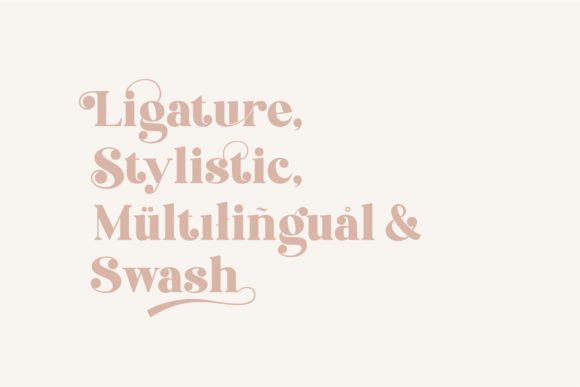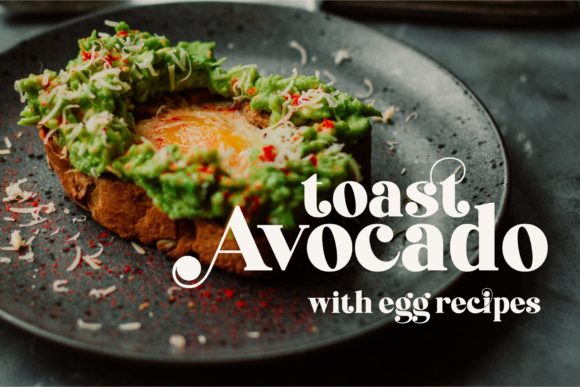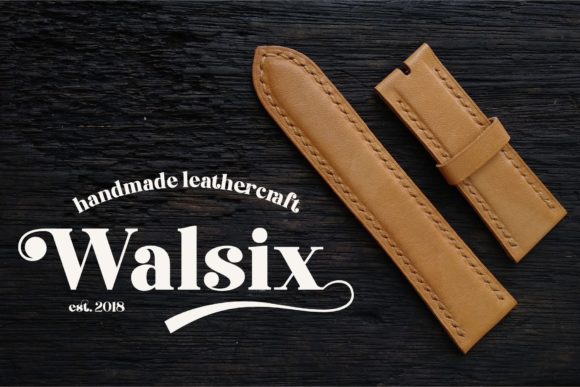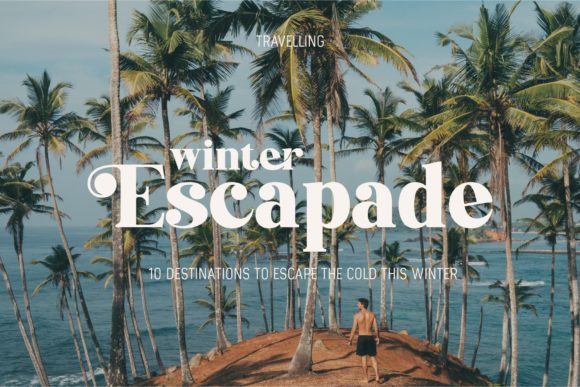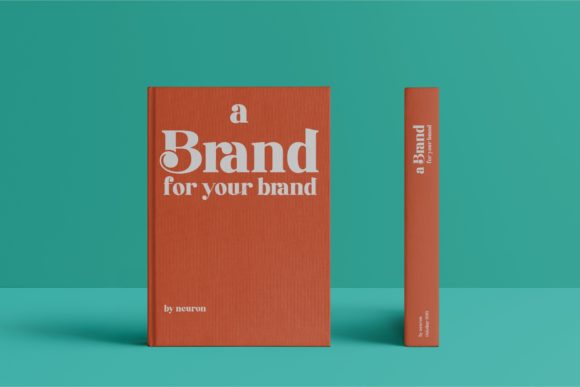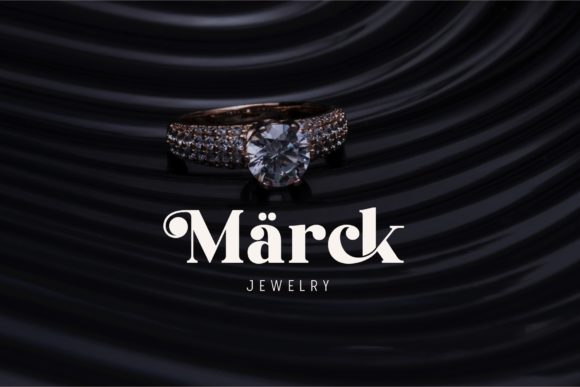
The Power of Brand Font: Elevating Your Visual Identity with Bold and Chic
In the world of design, typography plays a crucial role in shaping a brand’s visual identity. A well-chosen font can instantly convey a brand’s personality, values, and tone, setting it apart from competitors and making it more memorable to audiences. One font that has been making waves in the design community is Brand Font, described as “bold and chic, featuring strong contrasts and an incredibly elegant feel.” In this article, we’ll explore the world of Brand Font, its characteristics, and how it can elevate your brand’s visual identity.
What is Brand Font?
Brand Font is a typeface designed to make a statement. Its bold and chic aesthetic is characterized by strong contrasts, elegant lines, and a sophisticated feel. This font is perfect for brands that want to exude confidence, luxury, and refinement. Whether you’re a high-end fashion brand, a premium lifestyle brand, or a creative agency, Brand Font can help you establish a strong visual identity that resonates with your target audience.
Key Characteristics of Brand Font
So, what makes Brand Font so unique? Here are some of its key characteristics:
- Bold and Chic: Brand Font is designed to be attention-grabbing, with a bold and chic aesthetic that’s perfect for headlines, titles, and other display text.
- Strong Contrasts: The font features strong contrasts between thick and thin lines, creating a sense of drama and elegance.
- Elegant Feel: Brand Font has an incredibly elegant feel, making it perfect for luxury brands, high-end fashion, and premium lifestyle brands.
- Versatile: Despite its bold and chic aesthetic, Brand Font is surprisingly versatile, and can be used for a wide range of design applications, from print to digital.
Benefits of Using Brand Font
So, why should you consider using Brand Font for your design projects? Here are some benefits:
- Instant Recognition: Brand Font is designed to be memorable, making it perfect for brands that want to establish a strong visual identity.
- Emotional Connection: The font’s elegant feel and strong contrasts can help create an emotional connection with your target audience, making them more likely to engage with your brand.
- Flexibility: Brand Font can be used for a wide range of design applications, from business cards to billboards, and from websites to social media graphics.
- Unique: Brand Font is a unique typeface that can help your brand stand out from competitors and establish a distinctive visual identity.
How to Use Brand Font Effectively
Now that we’ve explored the benefits of Brand Font, let’s talk about how to use it effectively in your design projects. Here are some tips:
- Use it Sparingly: Brand Font is a bold and attention-grabbing font, so use it sparingly to avoid overwhelming your audience.
- Pair it with Other Fonts: Consider pairing Brand Font with other fonts to create a unique and harmonious typography system.
- Experiment with Colors: Brand Font looks great in a range of colors, so experiment with different colors to find the one that works best for your brand.
- Consider the Context: Consider the context in which your brand will be used, and adjust the font size, style, and color accordingly.
In conclusion, Brand Font is a powerful tool for designers and crafters looking to elevate their brand’s visual identity. Its bold and chic aesthetic, strong contrasts, and elegant feel make it perfect for luxury brands, high-end fashion, and premium lifestyle brands. By understanding the key characteristics and benefits of Brand Font, and using it effectively in your design projects, you can create a unique and memorable visual identity that resonates with your target audience.